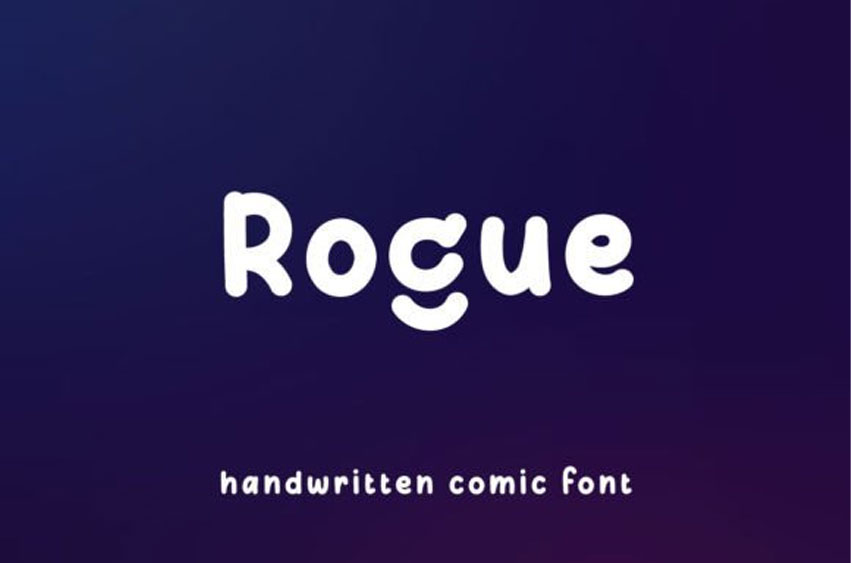
Rogue Comic Font is a whimsical and hand-drawn comic typeface that adds a touch of mischief to your designs.
Perfect for comic books, posters, and playful projects, Rogue font brings a dash of character to your text with its quirky, handwritten style.